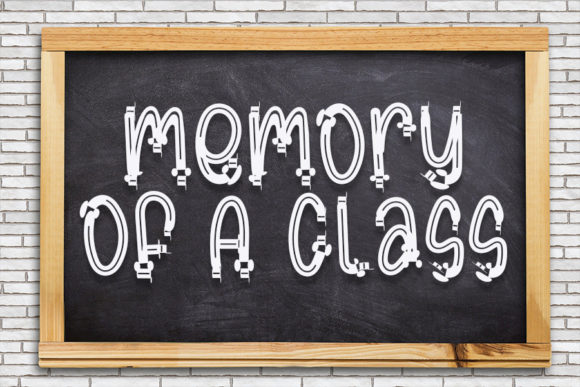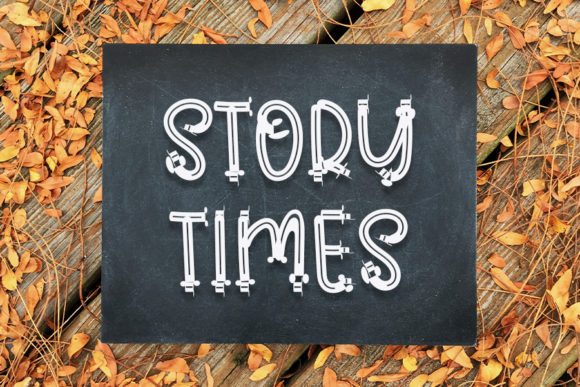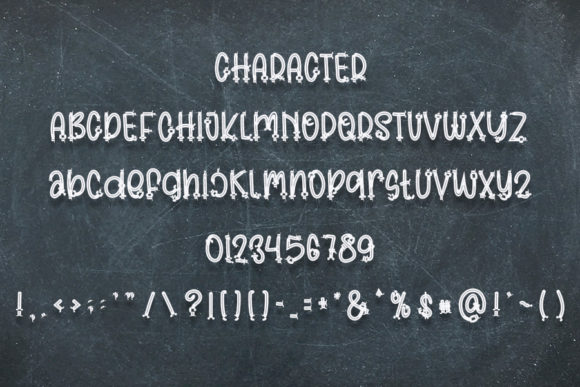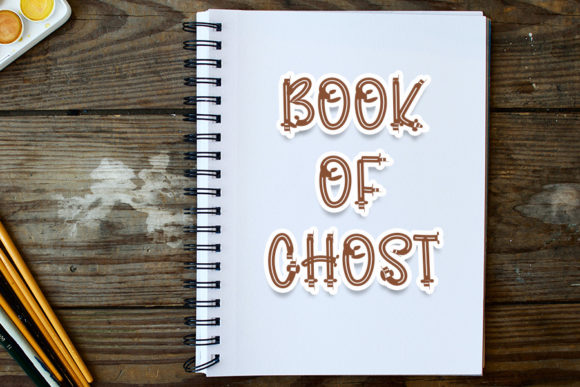
Introduction to Horror Movies Font
Horror Movies is a unique and eye-catching display font.
Its flexibility and jolly spirit will brighten up each of your designs Have fun with this beautiful font and explore its endless variations.
Key Features of Horror Movies Font